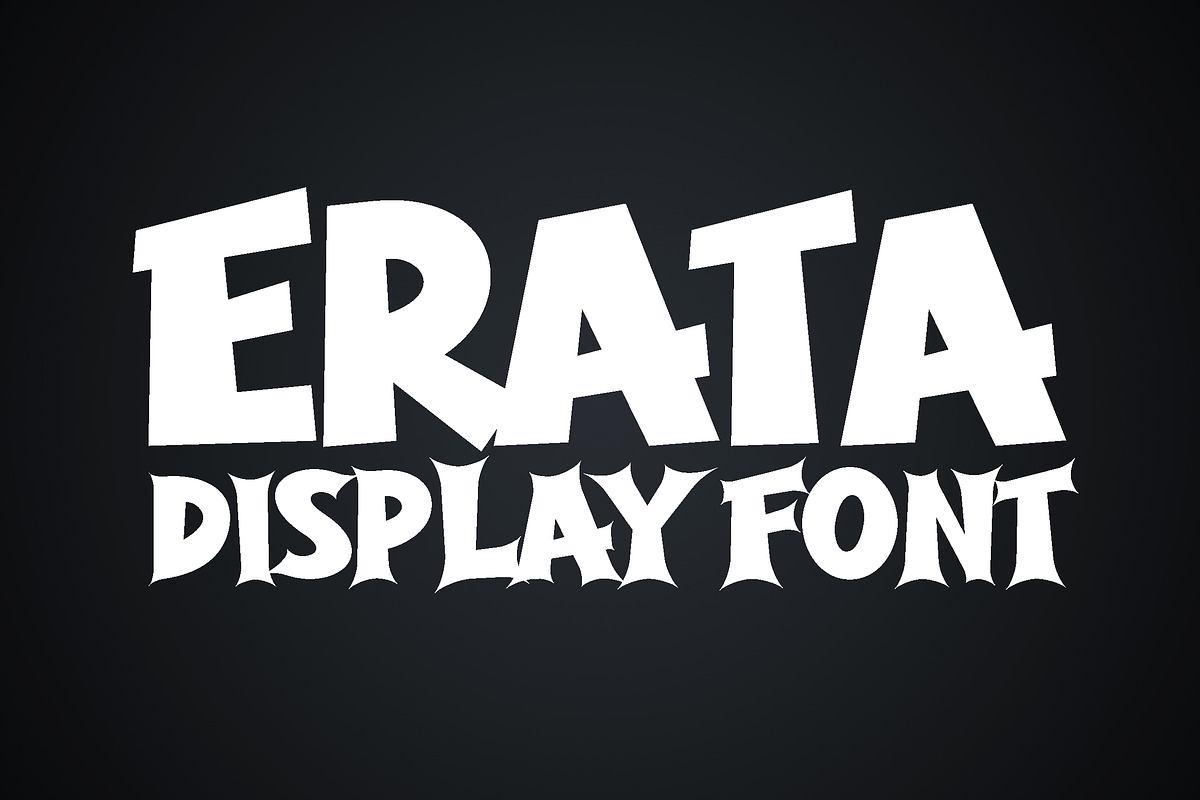
Erata – Bold Display Type Font Free Download is a striking and confident typeface built to make an impact. With its sharp edges, thick strokes, and modern display style, Erata is perfect for posters, headlines, branding, album covers, advertising campaigns, and anything that demands attention.
Designed to stand tall and strong, this font commands the viewer’s eye while remaining clean and versatile. Whether you're crafting visual identities or creating bold typographic layouts, Erata adds strength, attitude, and clarity to your message.
Designers love Erata for its bold personality and professional versatility across digital and print platforms. Ready to power up your next project? Download Erata – Bold Display Type Font Free Download and bring your design to life with bold precision and presence.